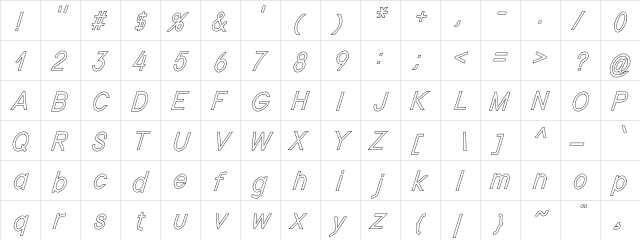
Nordica Plus NordicaClassicLightConOblOl
Design Context for Nordica Plus Typeface
Nordica Plus has the warm character of retro typography — evoking diners, record sleeves, and the golden age of print advertising. The delicate stroke weight brings airiness and refinement to layouts.
Perfect for vintage-inspired branding, retro packaging, nostalgia campaigns, and period-accurate editorial design.
Font Pairing: Combine Nordica Plus with a simple slab or neutral sans — period-accurate companions reinforce the vintage feel without competing for attention.
Pro Tip: Use Nordica Plus for headlines and pull quotes rather than body copy — its personality is best appreciated in short, focused bursts.